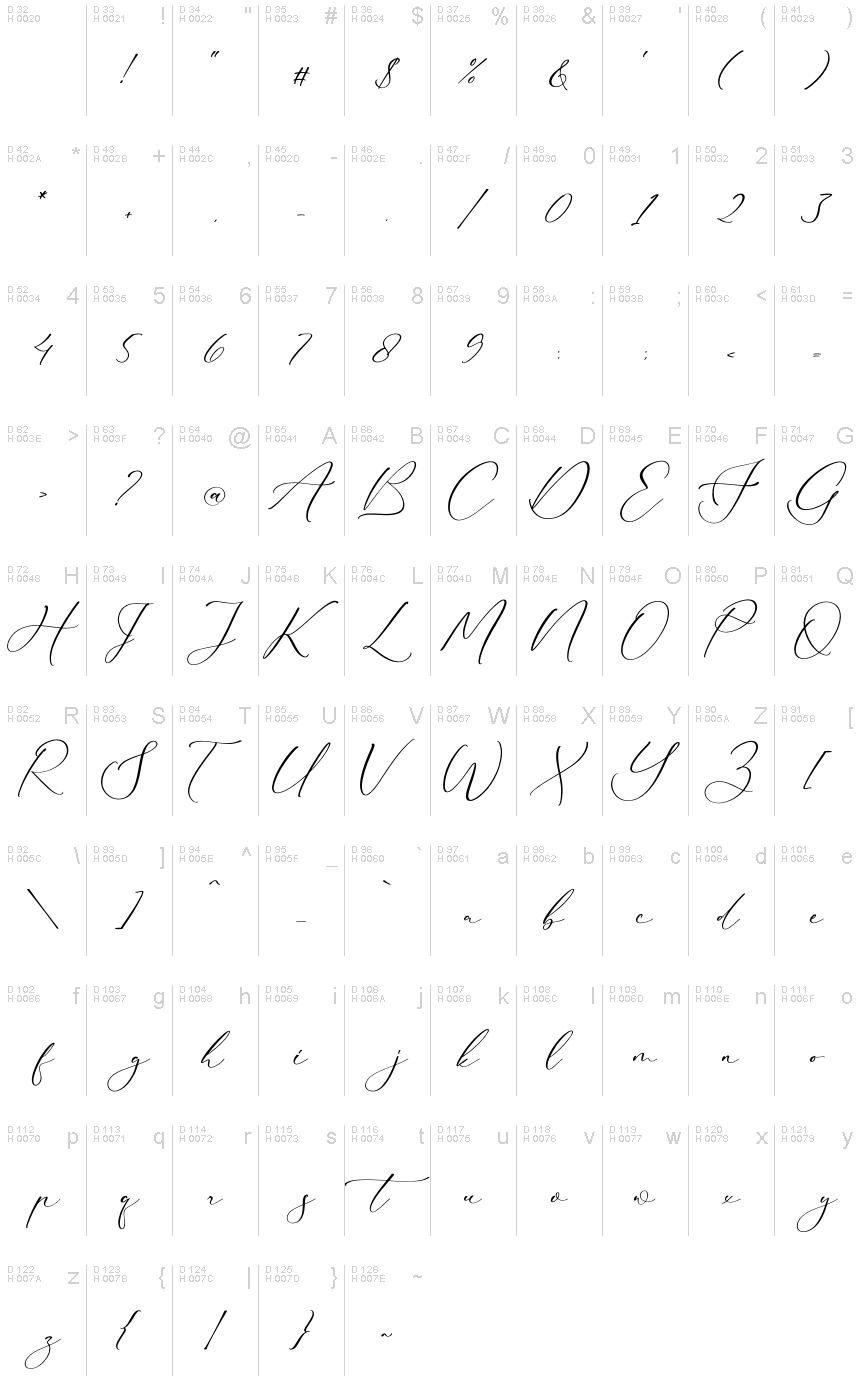
Bidalari Hearter
Bidalari Hearter, a captivating handwritten font crafted by Storytype Studio, exudes a gentle, organic charm. Its light stroke variations and subtle script-like flourishes lend an elegant, naturally flowing aesthetic, conveying a sense of warmth and authenticity. The fluid, expressive letterforms dance across the page, inviting the viewer to explore the font's unique personality and character.
Bidalari Hearter's versatility shines through, making it a versatile choice for a wide range of design applications. From invitations and stationery to branding and packaging, this font's distinct handwritten style can elevate any project with its refined, yet approachable appeal. Whether used for headlines, body text, or decorative elements, Bidalari Hearter effortlessly adds a touch of human connection and artistry to any design.